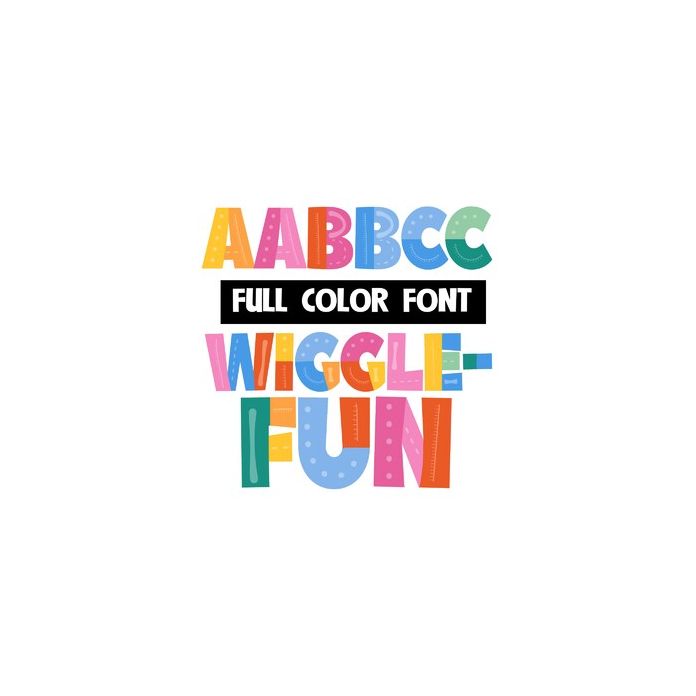
This full-color font features bright and fun colors and patterns throughout. This font works best for titles, displays, posters and more. Please note color fonts will show as black in non compatible programs. This font type is compatible with Silhouette Studio.